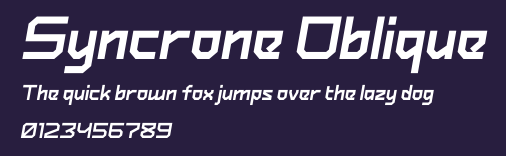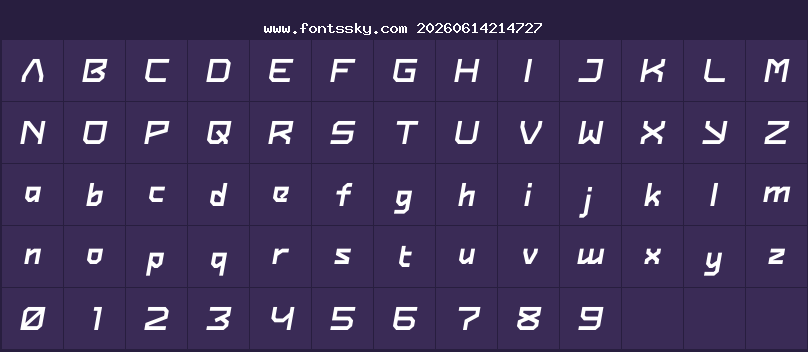
Syncrone Oblique Preview
• Font Name: Syncrone Oblique
• Font Style: Oblique
• Full Font Name: Syncrone Oblique
About Syncrone Oblique.ttf
Syncrone Oblique.ttf is a modern, elegant sans-serif font designed for ultimate readability and visual harmony. Perfect for branding, headlines, web design, and print materials.